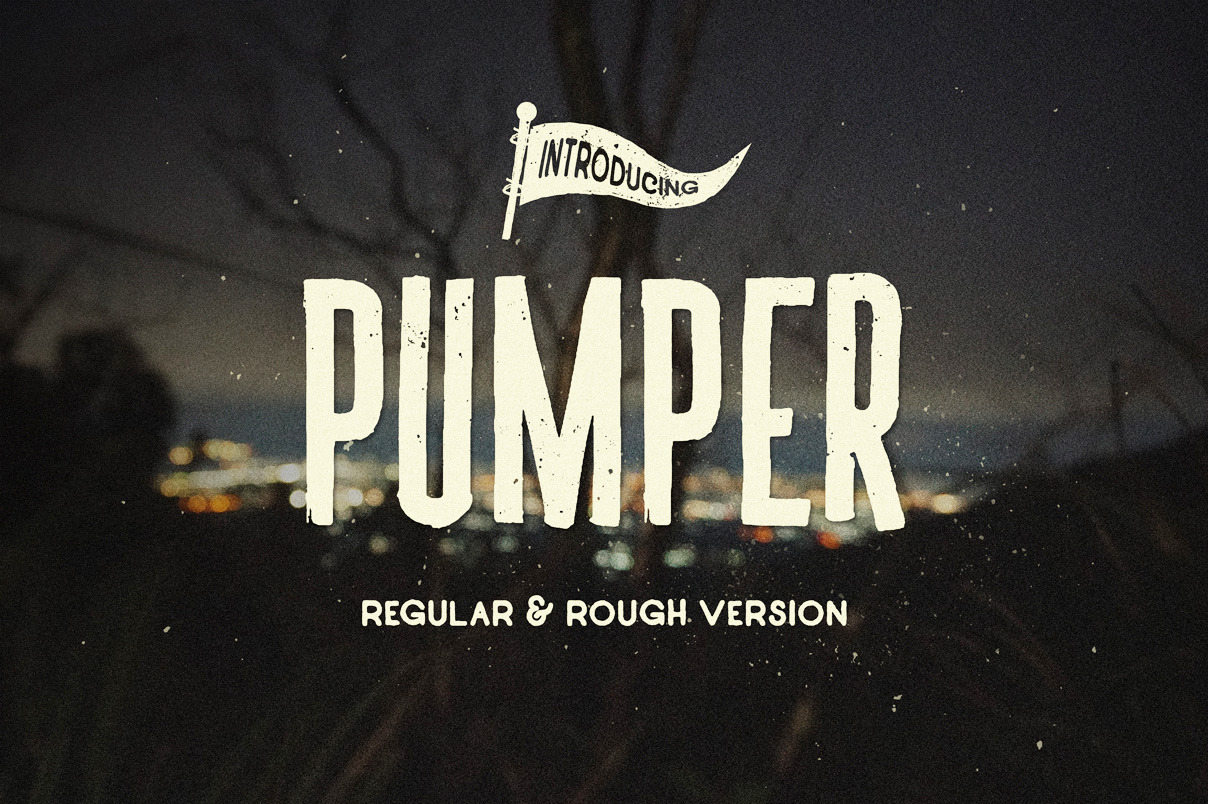
Pumper Typeface
Pumper is a handmade sans serif fonts consisting of 2 fonts style, Regular and Rough. made with ink and parallel pen.
Perfect for inspirational quotes, t-shirt graphics, typography art, apparel, labels, badges, Logo design, packaging, labels, headers and small amounts of text.